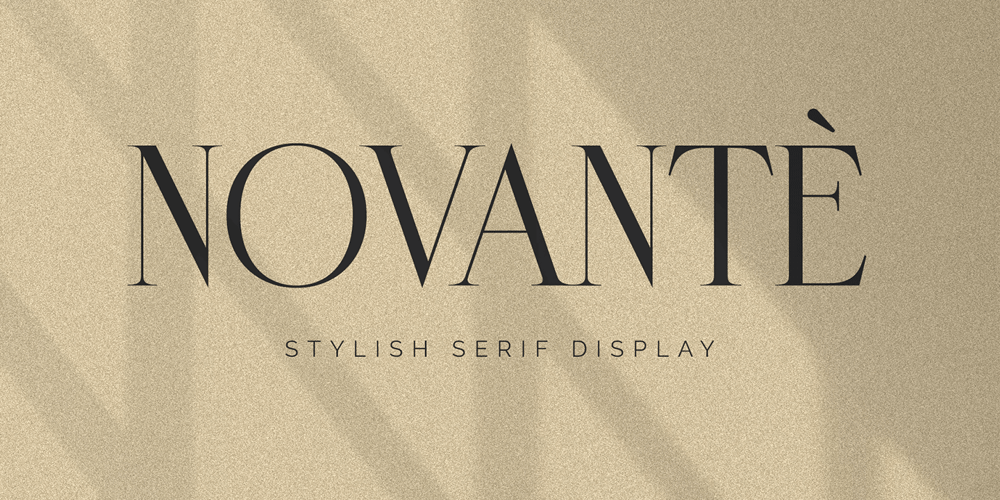
Novante Font Family was designed by Ahmad Ramzi Fahruddin and published by Arterfak Project. Novante contains 1 styles and family package options. Novante is a luxury display serif, a beautifully smooth and elegant typeface with high contrast of the letterforms that represents glamour and magnificence. Inspired by the luxurious Art Deco and modern minimalist of the design trends. Novante is an All-caps font equipped with lots of stylish ligatures and classy alternates that you can mix and match to get an elegant typographic look. This versatile font can be used for branding, logos, labels, quotes, magazines, cards, or short body text. The fonts features: Uppercase Small-caps Numbers Symbols Punctuations Accents (26 languages) Stylistic alternates Stylistic set 01-04 Discretionary Ligatures I hope you enjoy this elegant font as much as I was excited making it. Ramz.Check out Ranille which is a great pair for Novante.